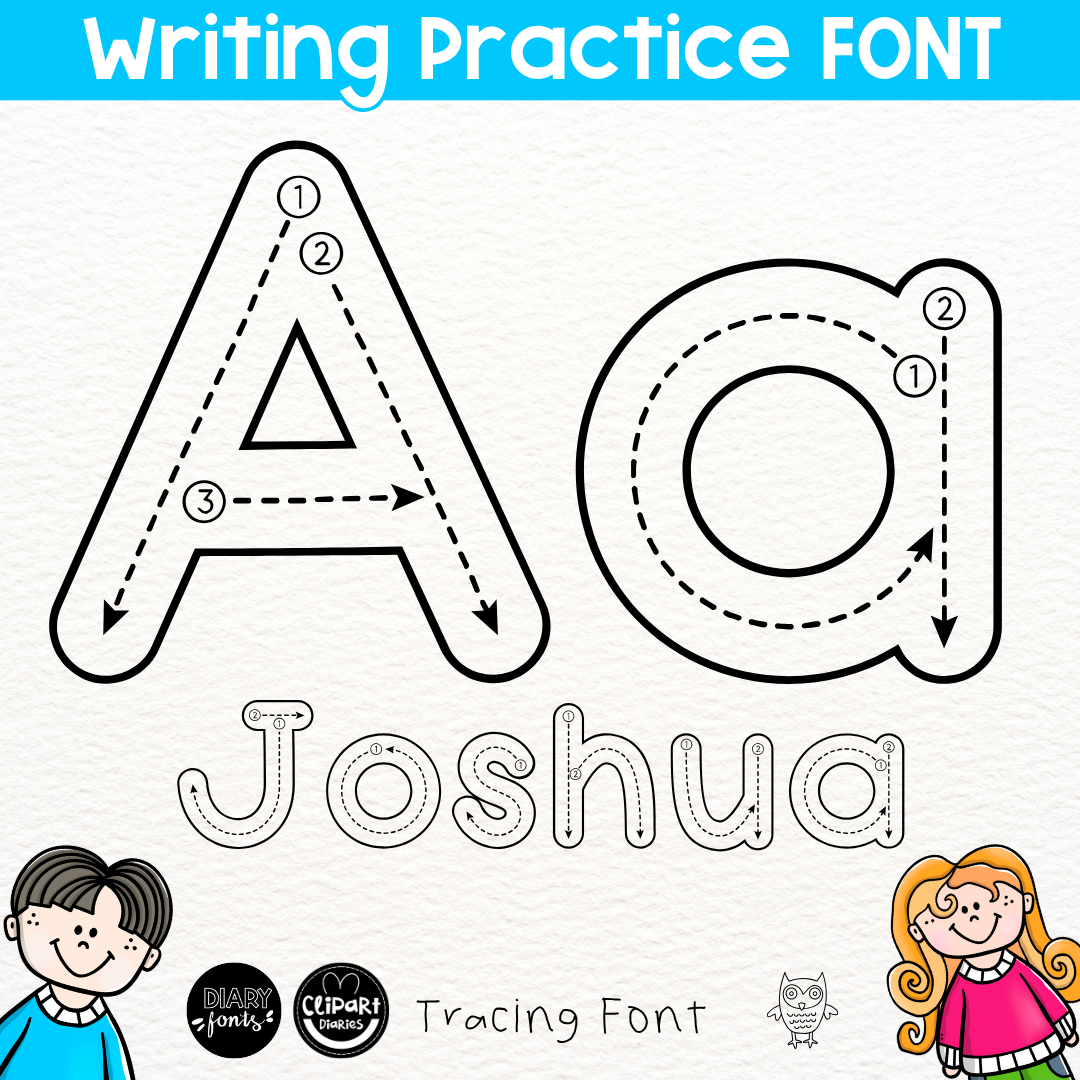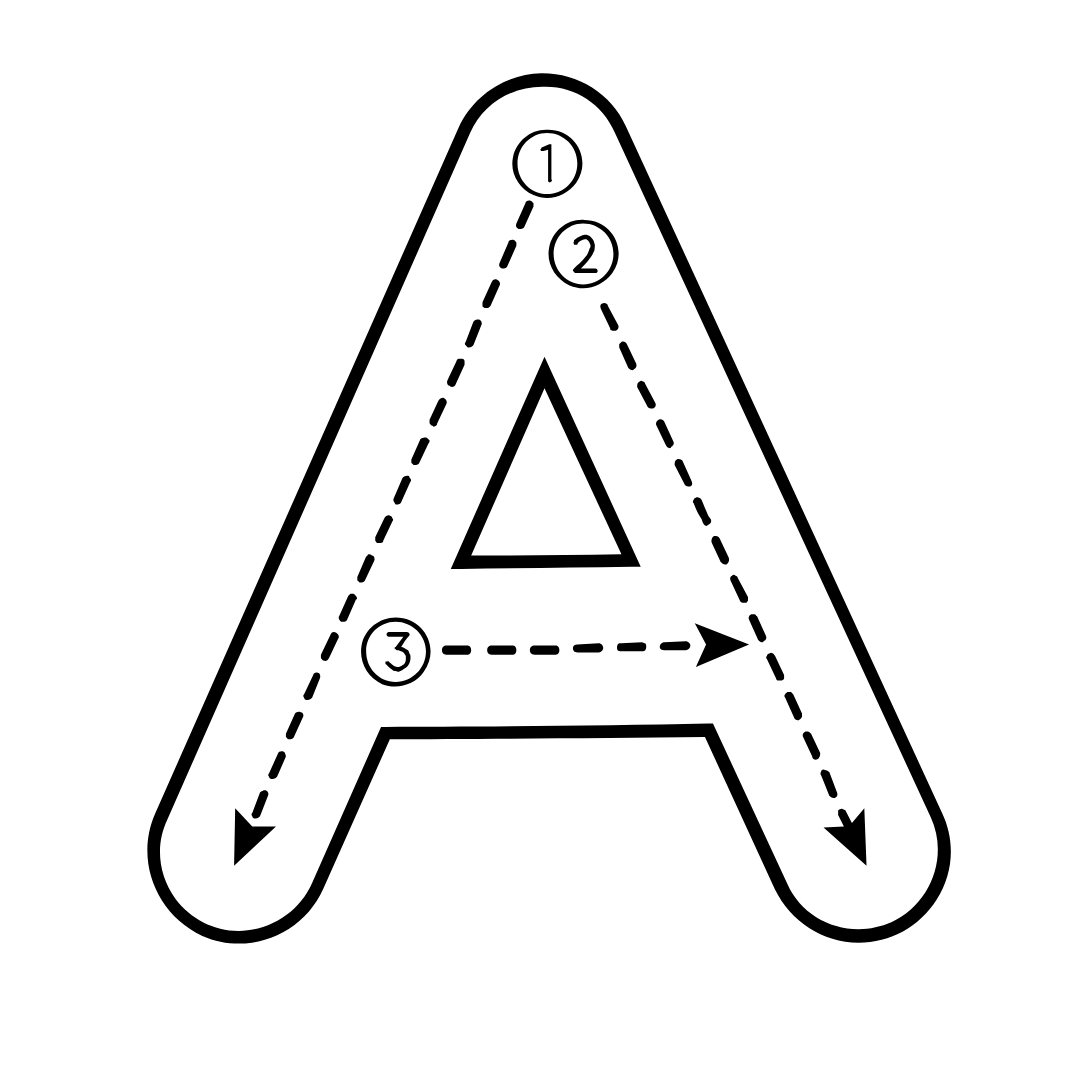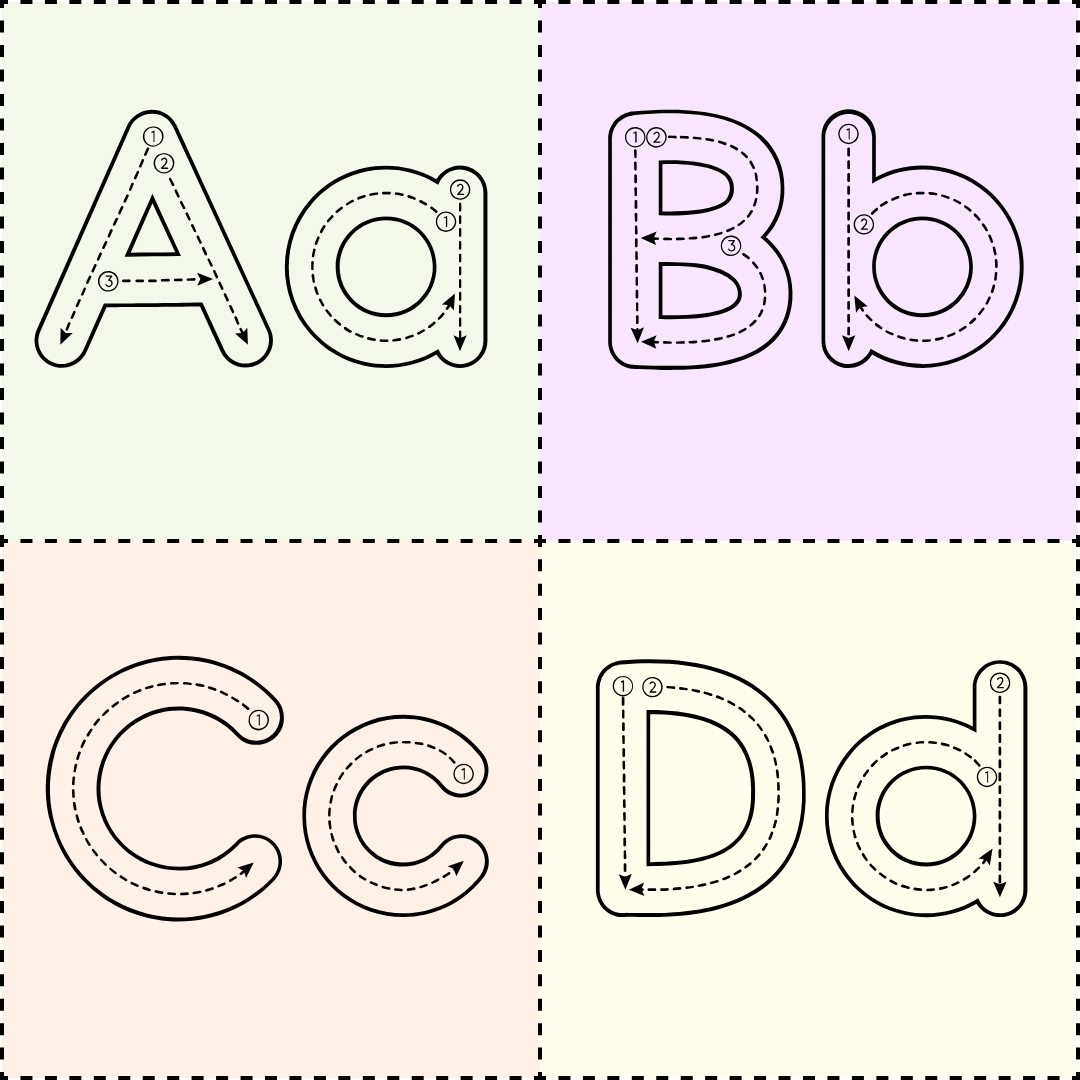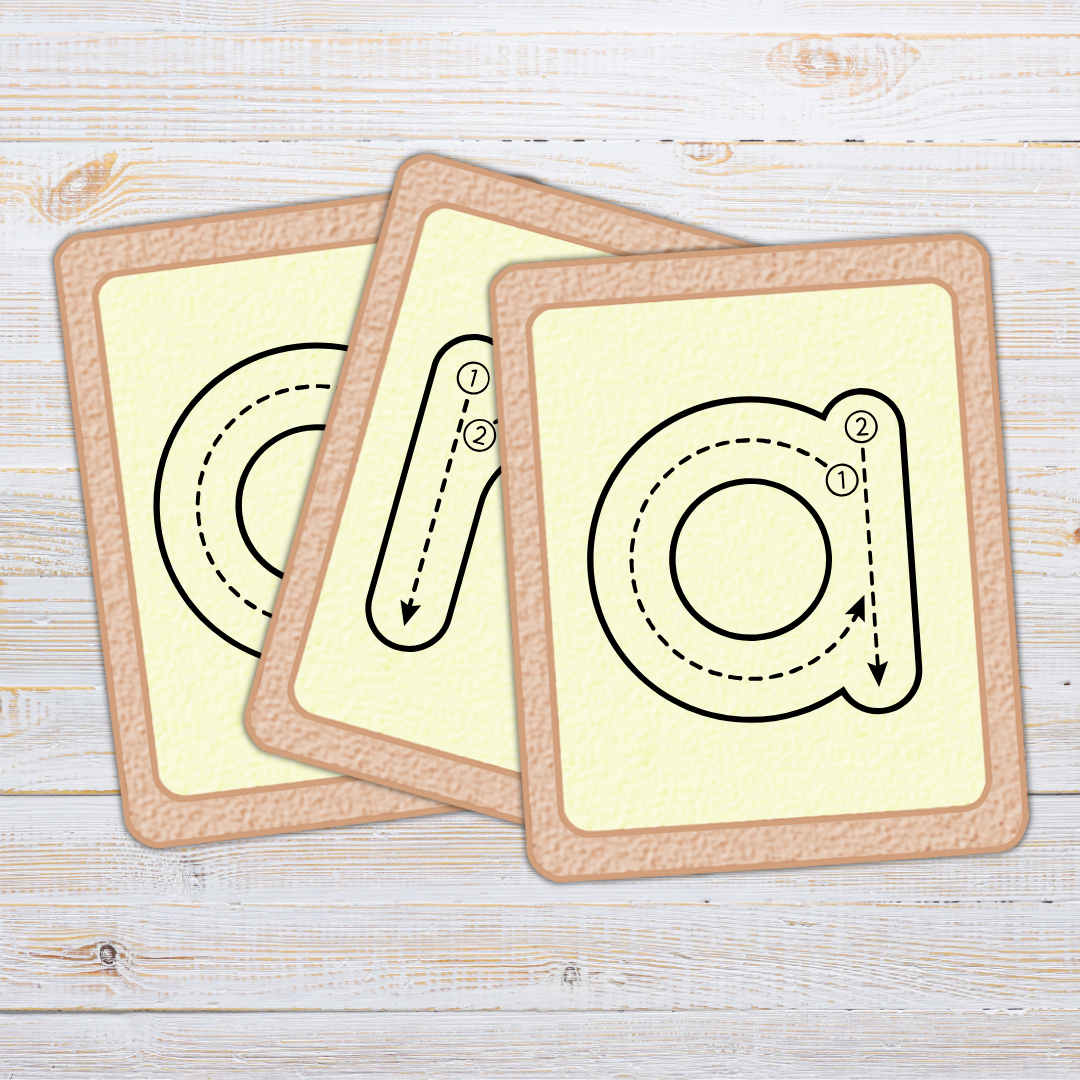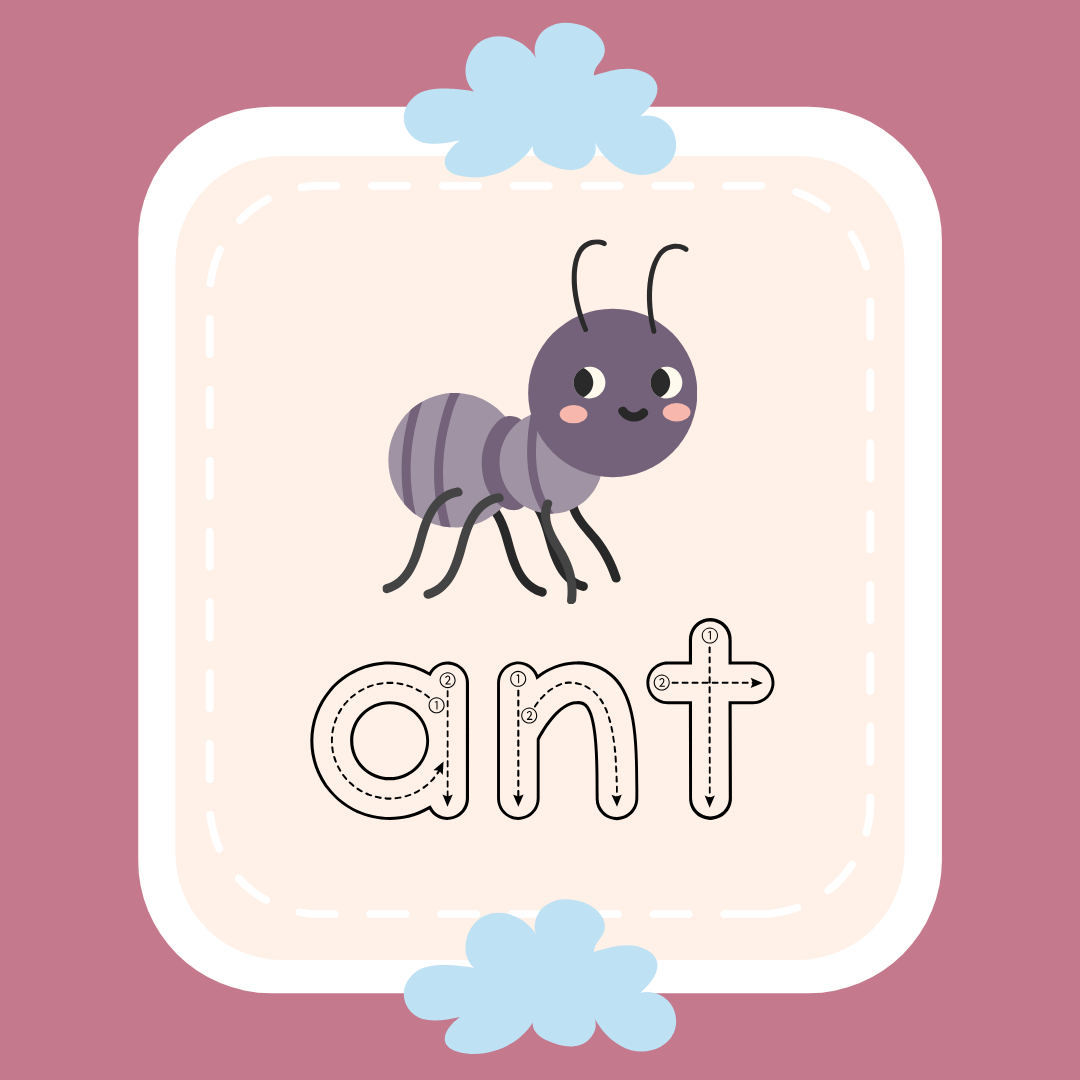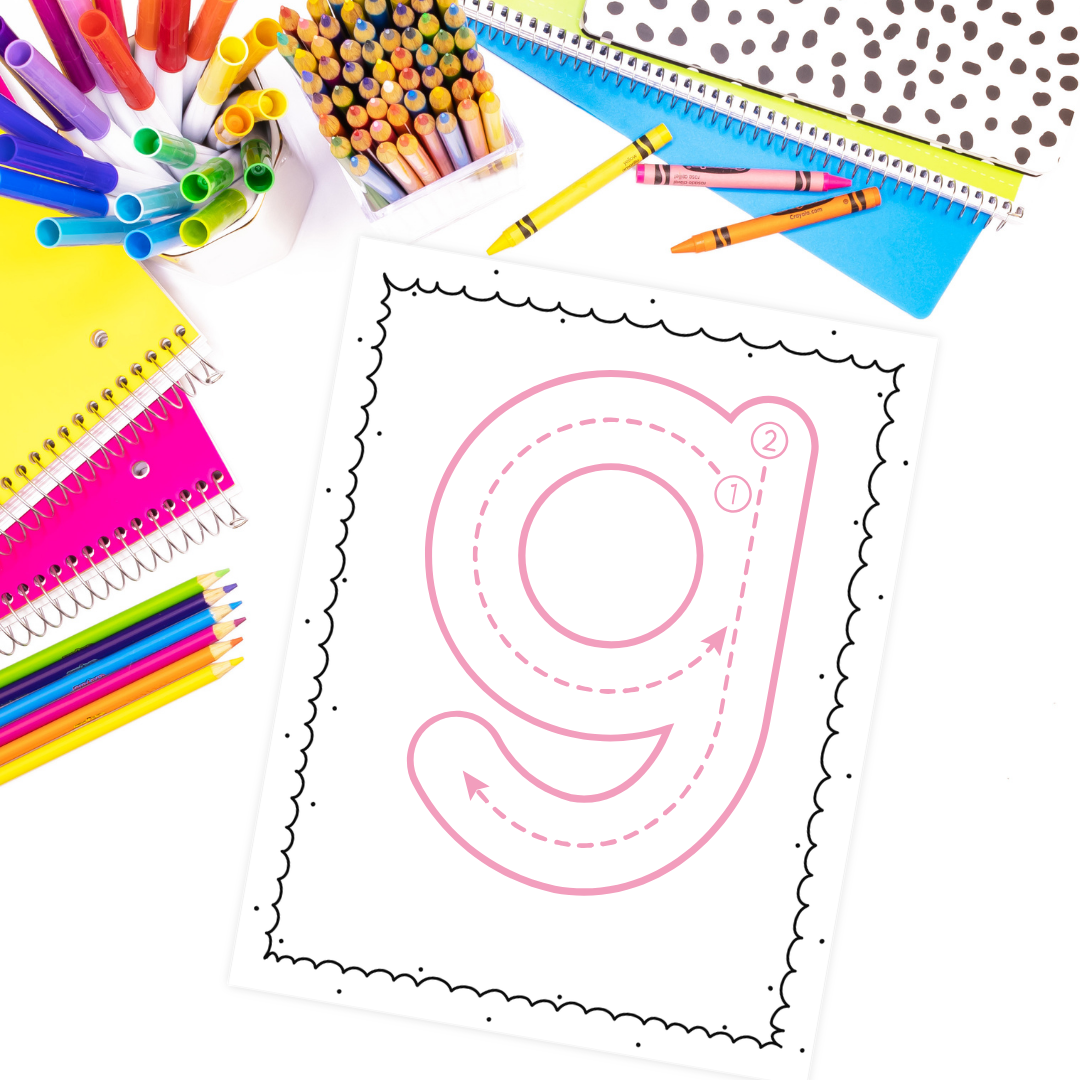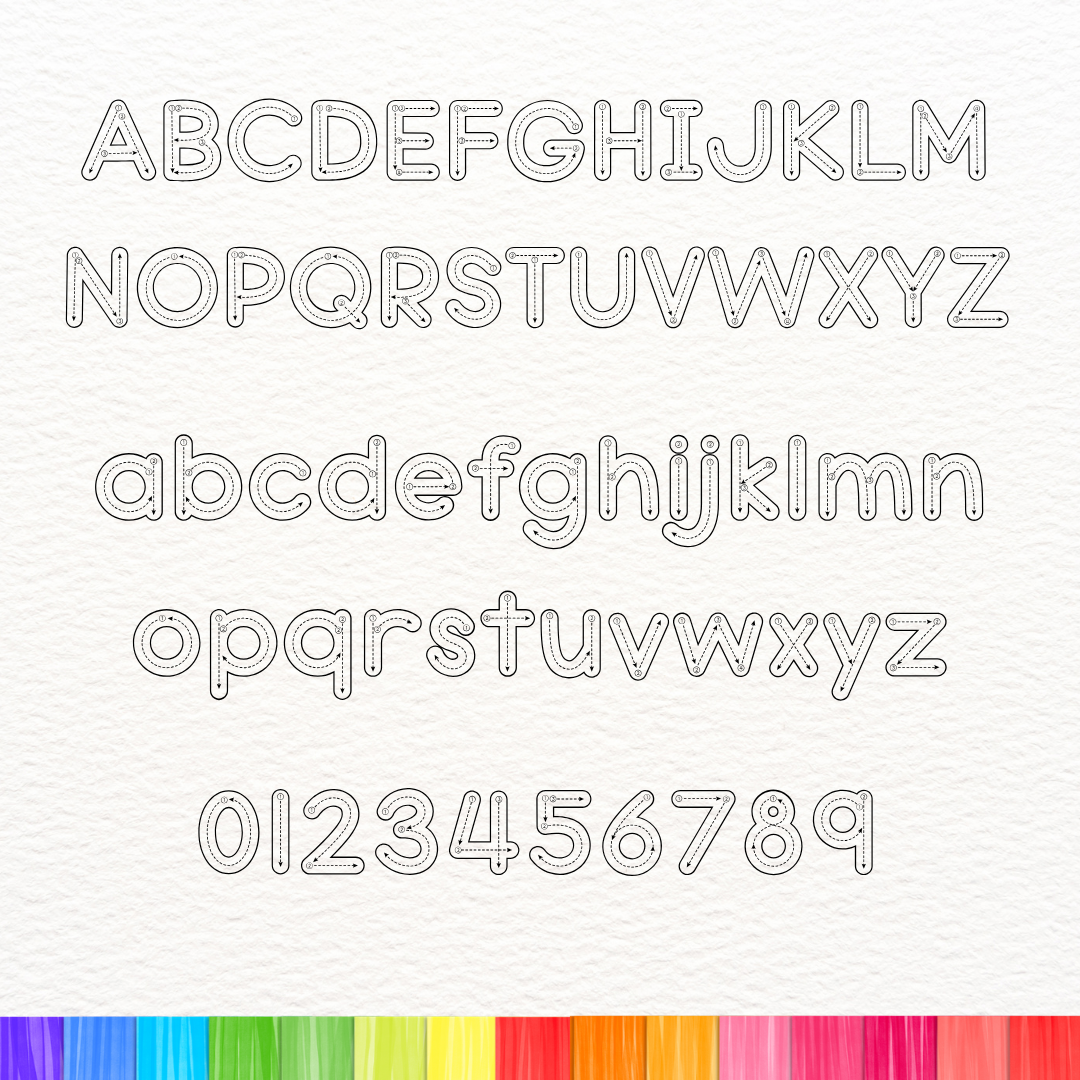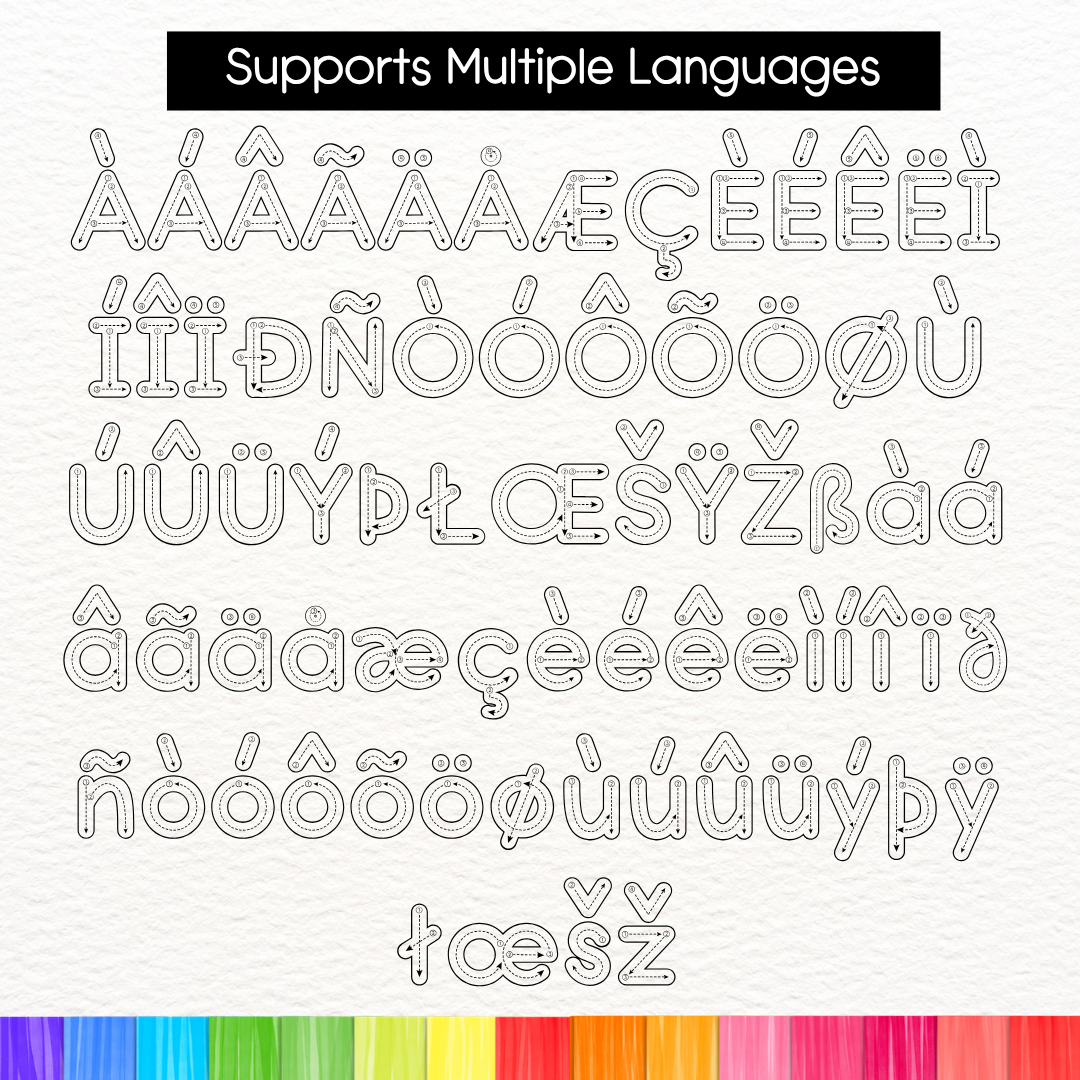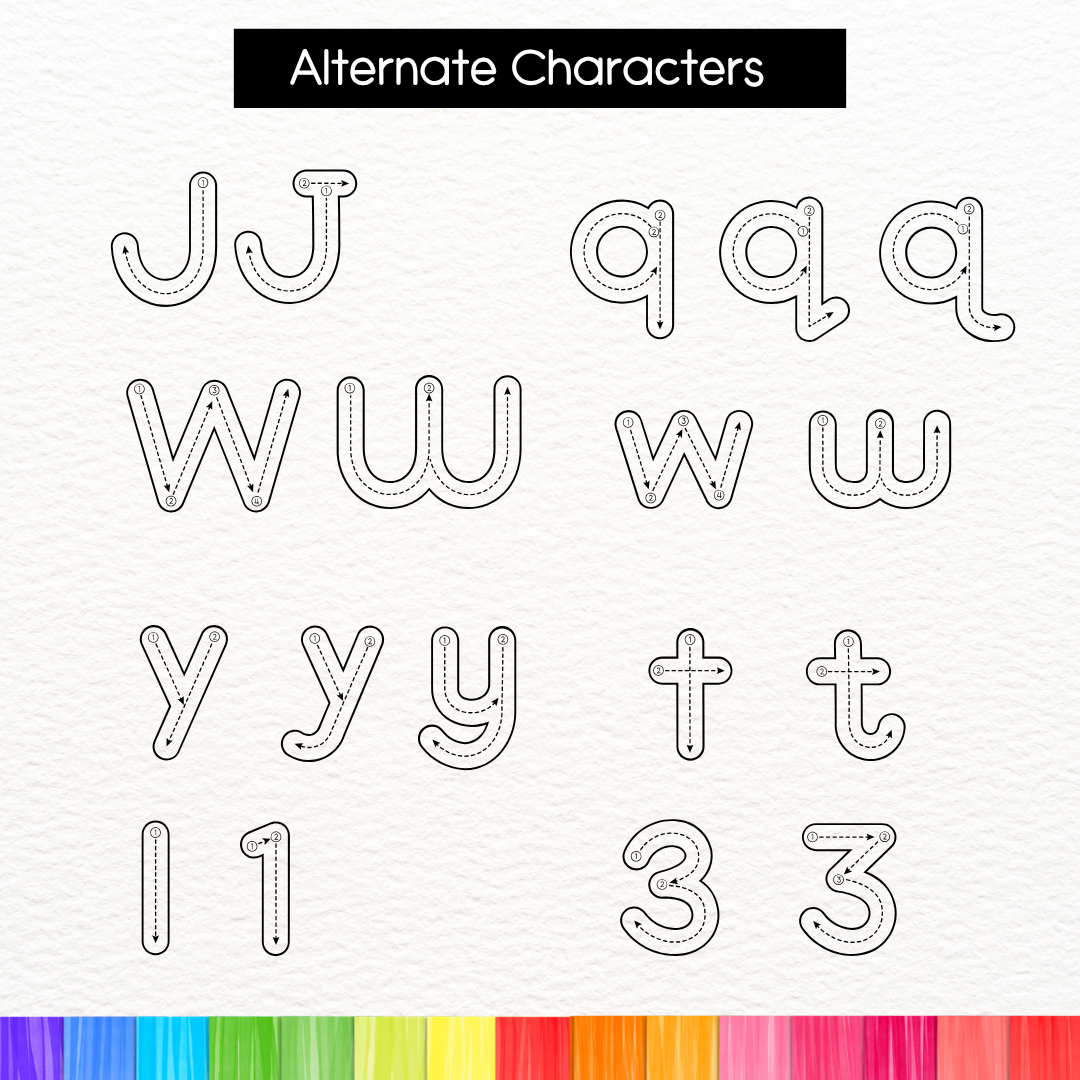
ABC Alphabet Handwriting Tracing Bubble Font with Directional Arrows and Guide – Print Font
This alphabet tracing font with arrows features clear directional stroke guides and number indicators, ideal for letter tracing practice, handwriting worksheets, and toddler fine motor skill activities. Designed as a bubble tracing font, it makes letter formation intuitive for pre-k, kindergarten, and primary students.
Mastering proper letter formation is a fundamental step in early childhood education and fine motor development. This alphabet tracing font with arrows and numbers provides clean, structured guide paths that assist pre-k, kindergarten, and primary grade students in learning correct stroke order and directional flow.
Whether you are creating customized student name practice sheets, daily morning work journals, letter recognition flashcards, or handwriting practice booklets, this versatile font simplifies resource creation for teachers, homeschoolers, and educational content creators.
Alternate characters for J, W, Y, q, t, w, 1, 3, and 4 are also available. (See preview for the letter alternates.) This font supports multiple accents or languages.